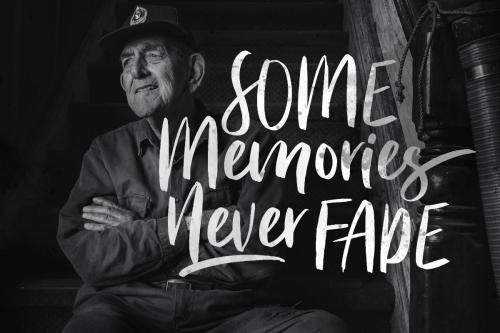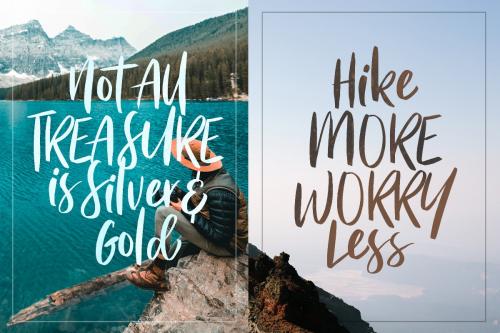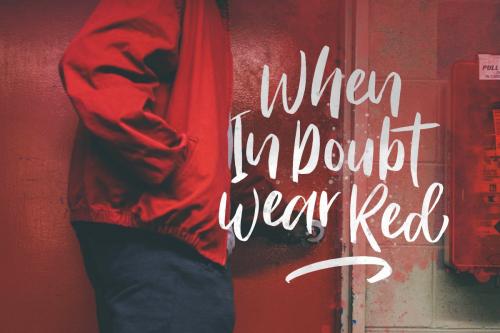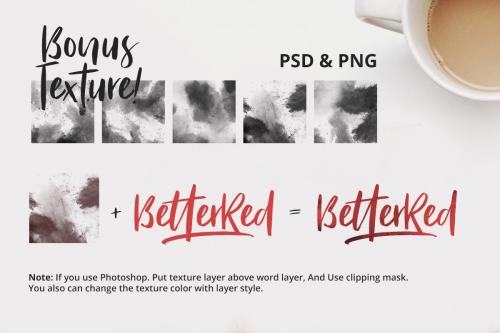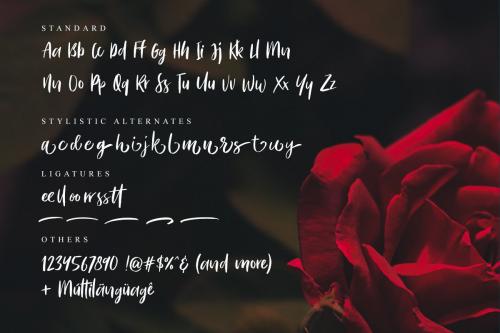
Bitter Rose Brush Font
Bitter Rose Brush Font designed and shared by Sarid Ezra. Bitter Rose is brush font that contain stylistic alternate, swash, etc to create your own customized signature, quotes, or logo design.